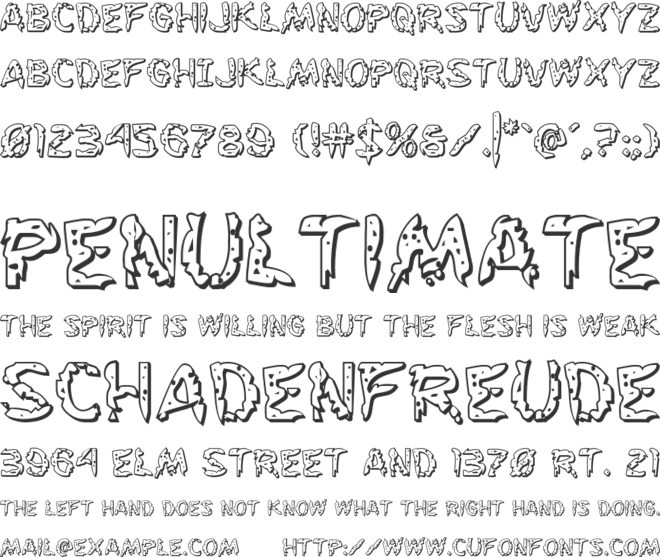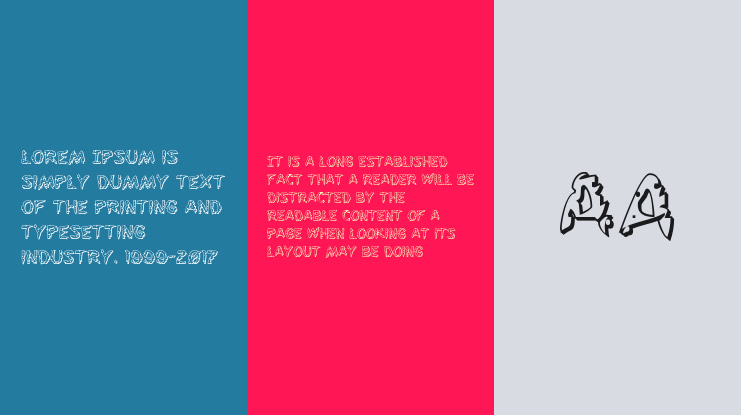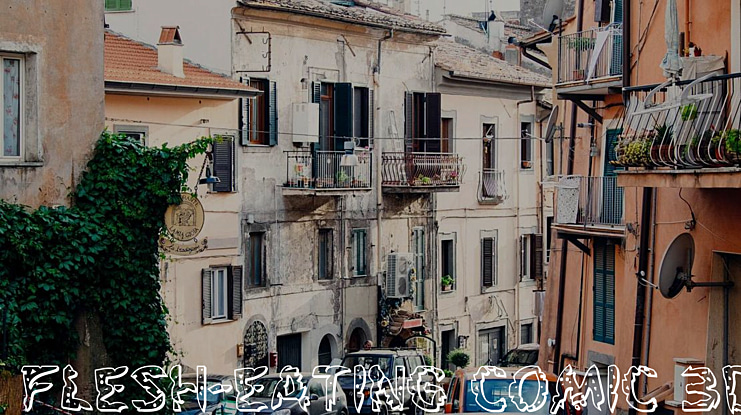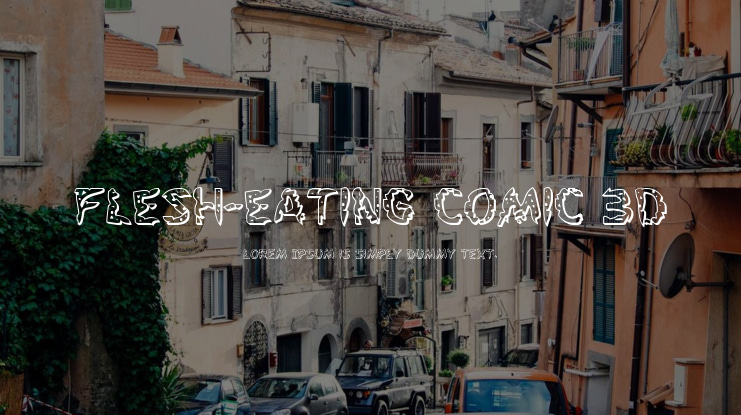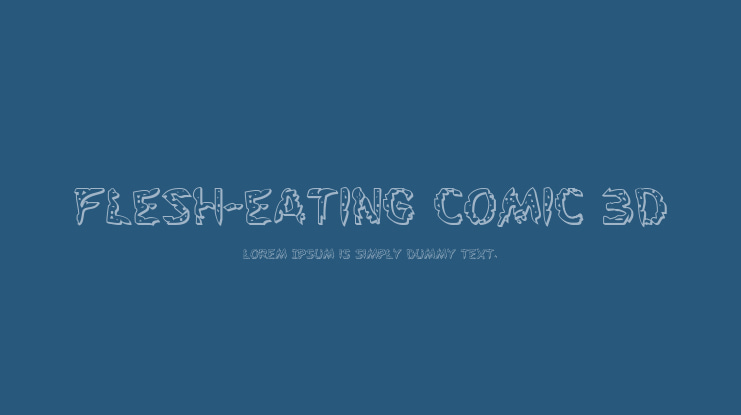
Flesh-Eating Comic 3D Font Family
This font is designed specifically for zombie, monster, and other terrifying word balloons and dialogues in comic books. It is optimized for smaller point sizes, resulting in a more authentic and visually appealing appearance.